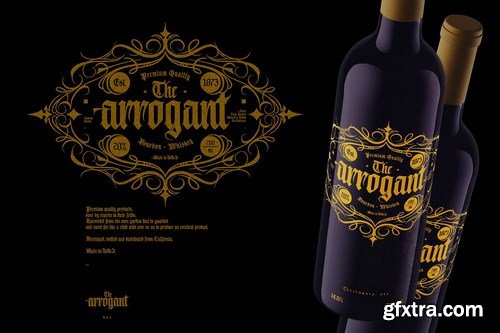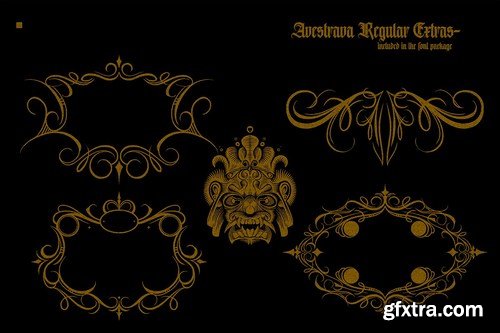
AVESTRAVA
is a work inspired by Old English letters, with the basic form of the Blackletter that I want to turn on in the modern era. So that my hope in the future is the blackletter font can be used in general.
This font is perfect for making logotypes, tattoo logos, tattoo designs, t-shirt designs, liquor label designs, band poster designs, band album cover designs and many more. As the headline of this font also has a strong nature because it is bold, and has a gothic impression. Besides this font is able to convey the nature of the vintage blackletter into a modern layout design. YOU WIL GET : Avestrava.otf Avestrava.ttf Ornaments.ai Features : Alternate Characters. Ligatures. Discretionary Ligatures. Support Multilingual Characters. Extra Ornaments. P A S S W O R D AVEST4365TR7_GFXTRA